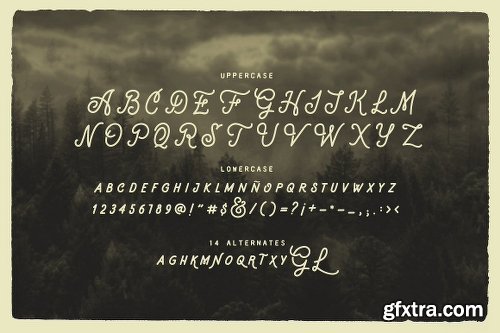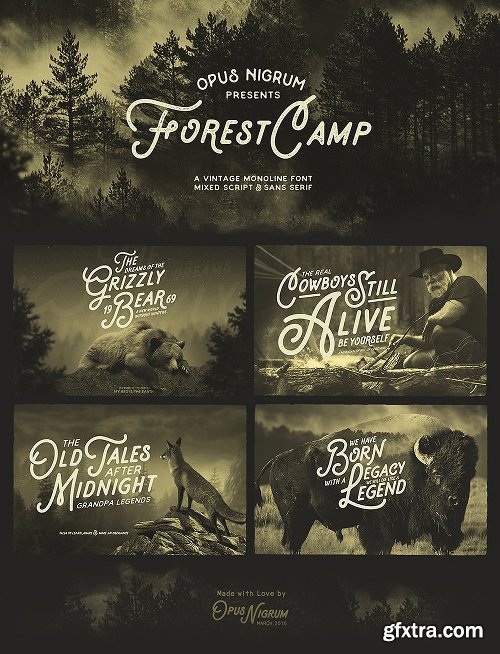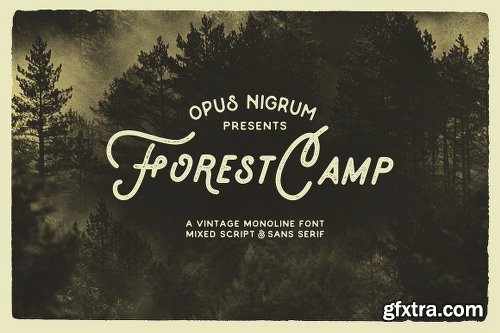
It is an imperfect font. Mixing uppercase in script and sans in lowercase. Created entirely by hand, inspired by the forest and nature. With a great retro look. Ideal for use in logos, lettering, quotes, cards, flyers or anything you want.